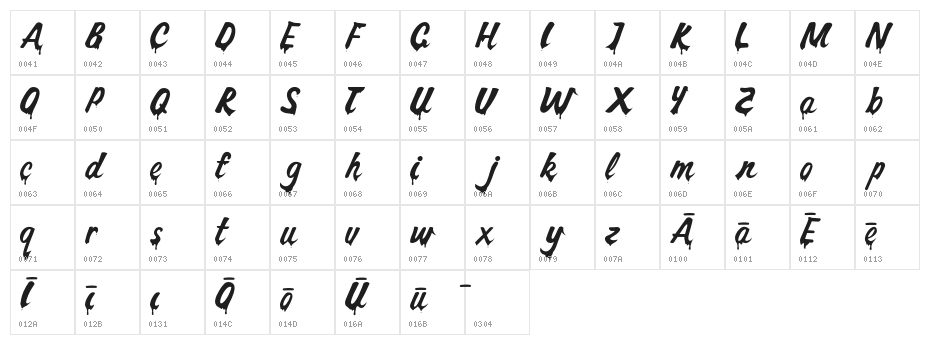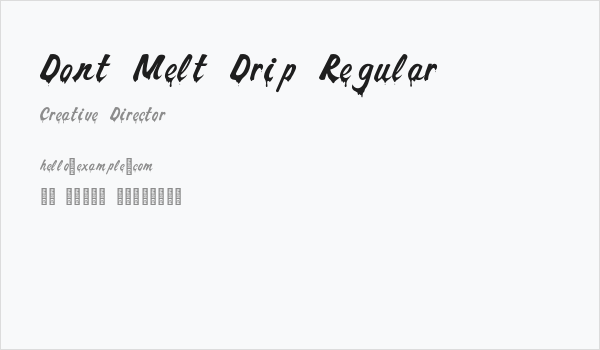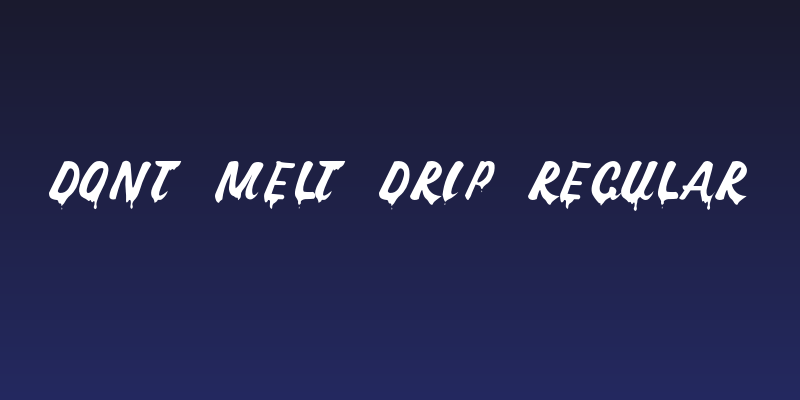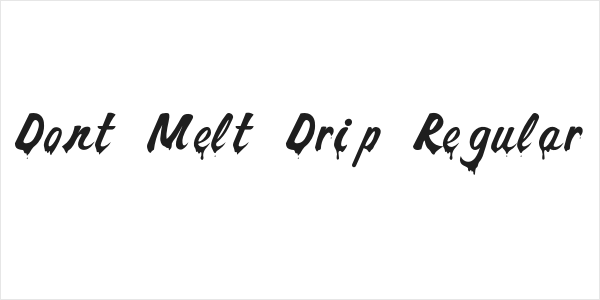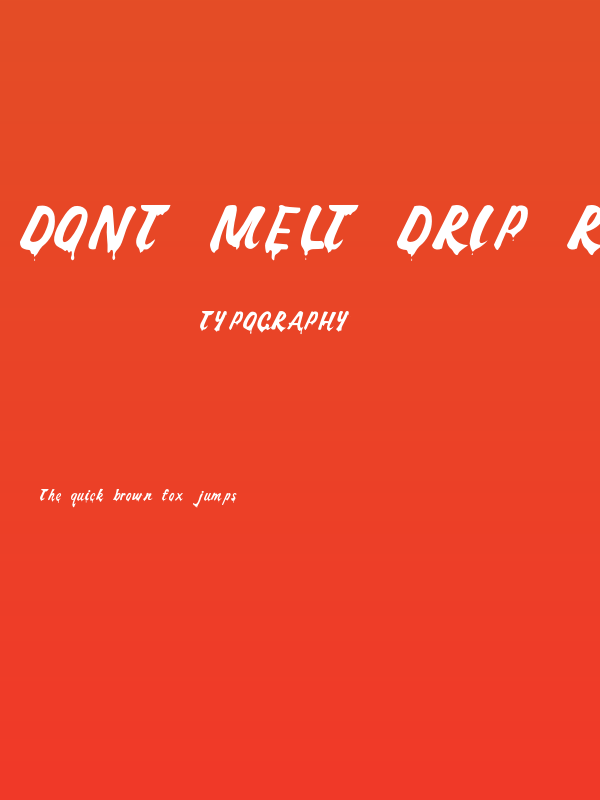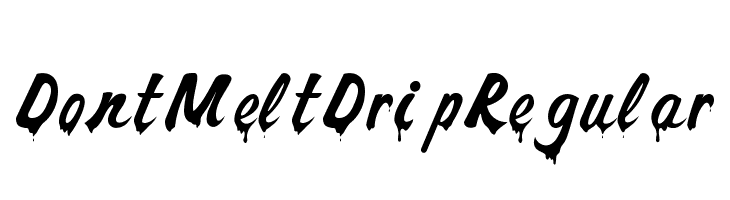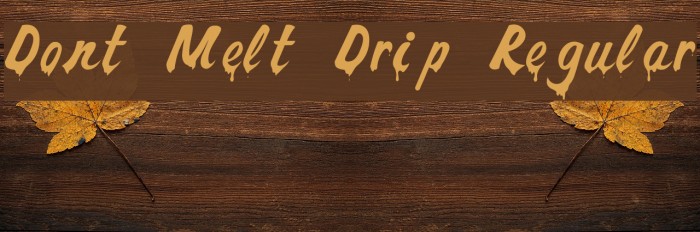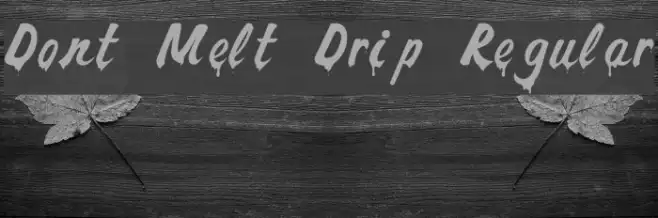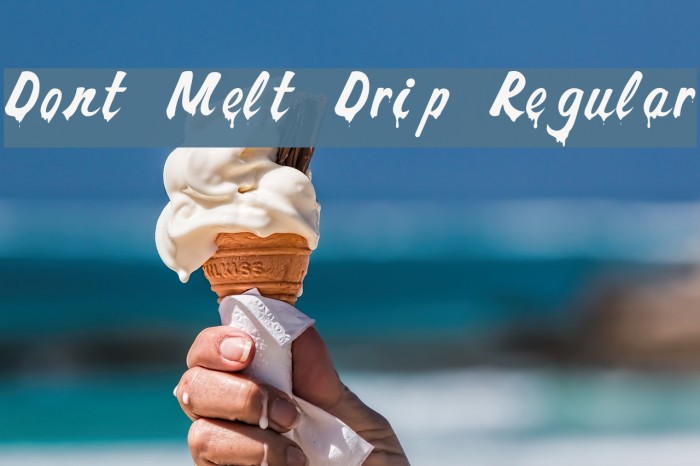
Dont Melt Drip Regular Font
Dont Melt Drip Regular Description
This font features a unique dripping effect that gives it a distinct, edgy appearance. The characters are bold and have a fluid, almost liquid-like quality, making them stand out dramatically. The uppercase and lowercase letters maintain a consistent style, with the drips adding a playful yet slightly eerie touch. The overall design is cohesive, with each letter seamlessly integrating the dripping motif. This font is perfect for creative projects that require a bold statement, such as Halloween-themed designs, edgy branding, or artistic posters.
| Proposed Projects | Ideal for Halloween designs, edgy branding, artistic posters, and creative projects requiring a bold statement. |